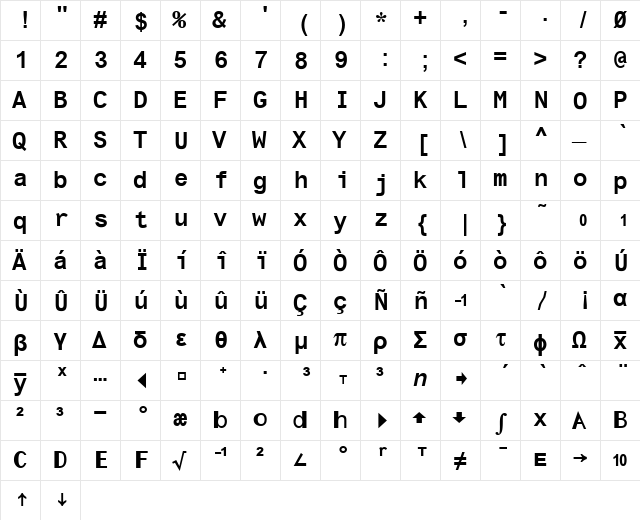
Ti86Pc Bold
| Foundry | Monotype Typography |
Design Context for Ti86Pc Typeface
Ti86Pc takes a measured approach to typography — its balanced proportions and neutral character make it a reliable workhorse for both digital and print work. The heavy weight commands attention and anchors typographic hierarchies.